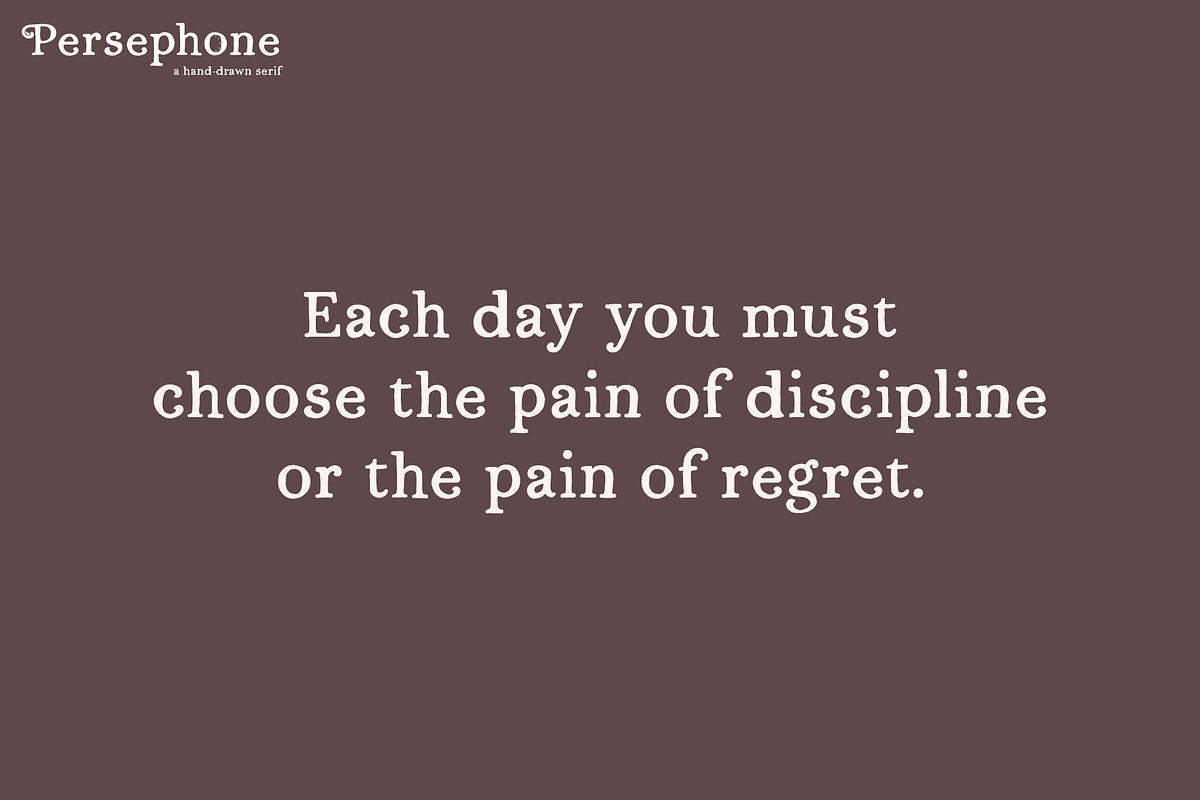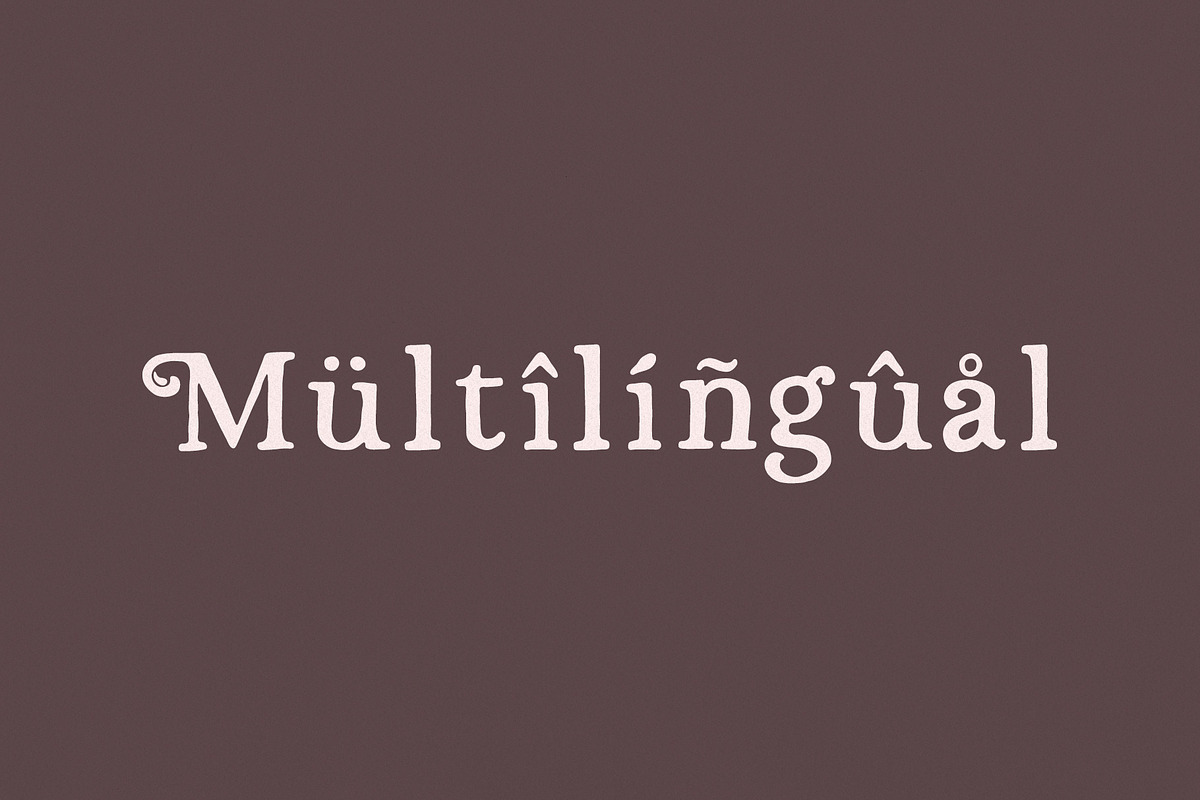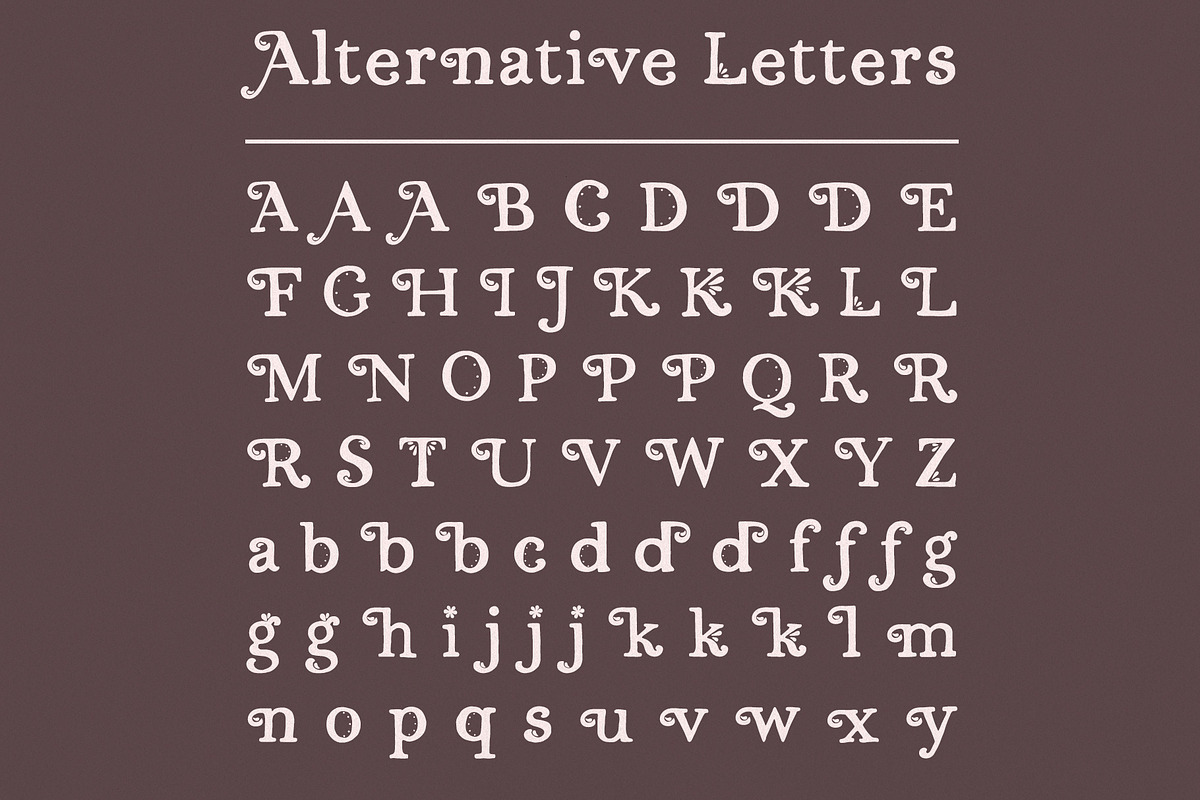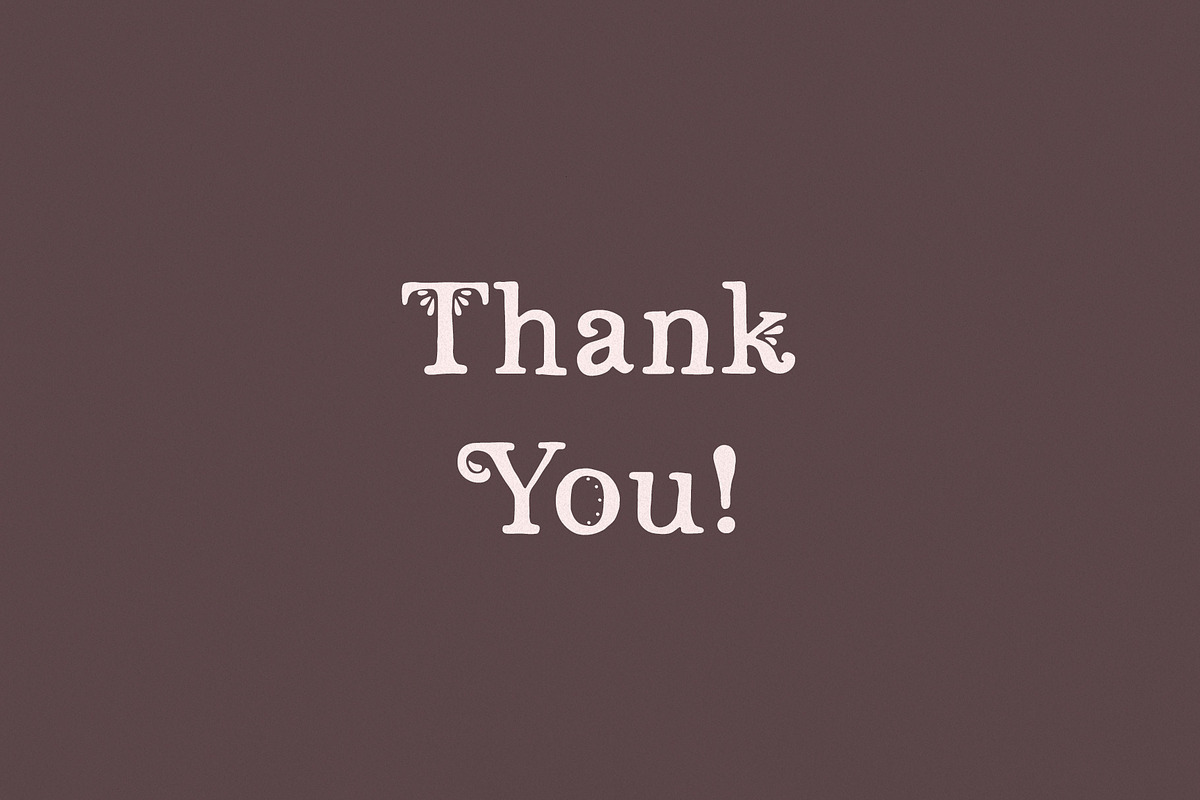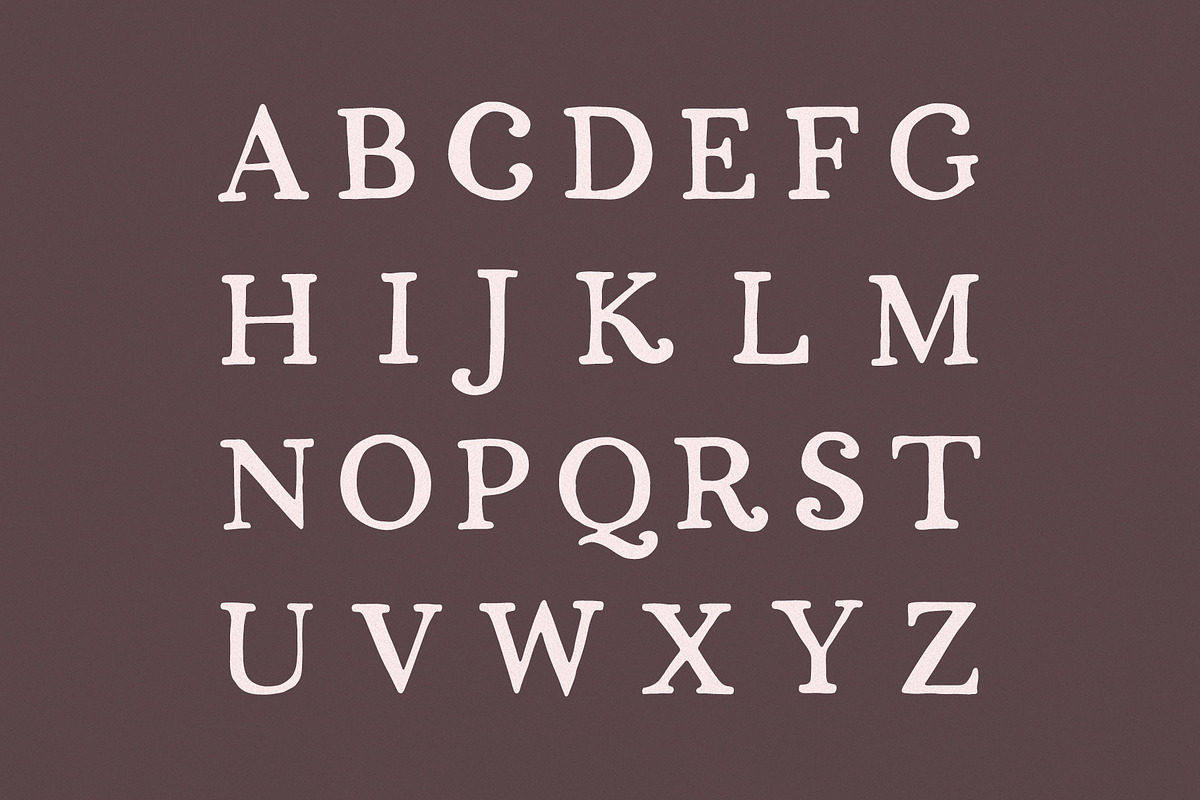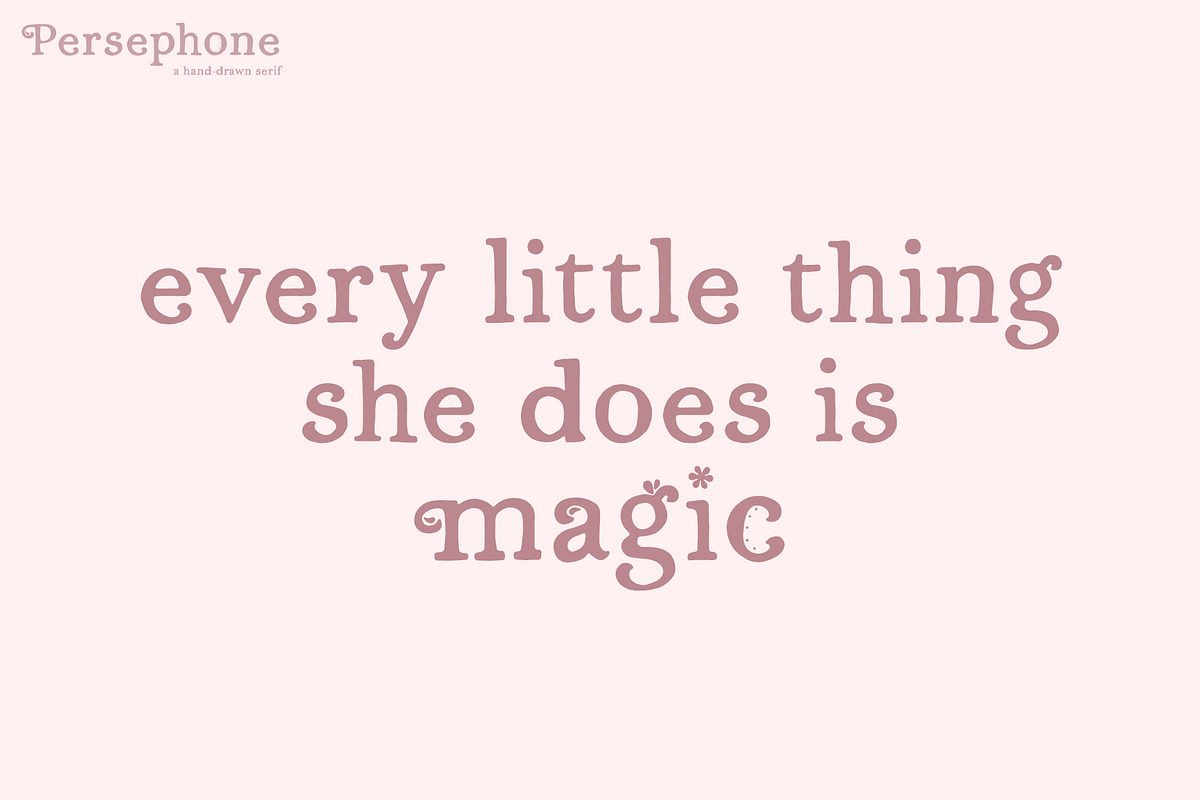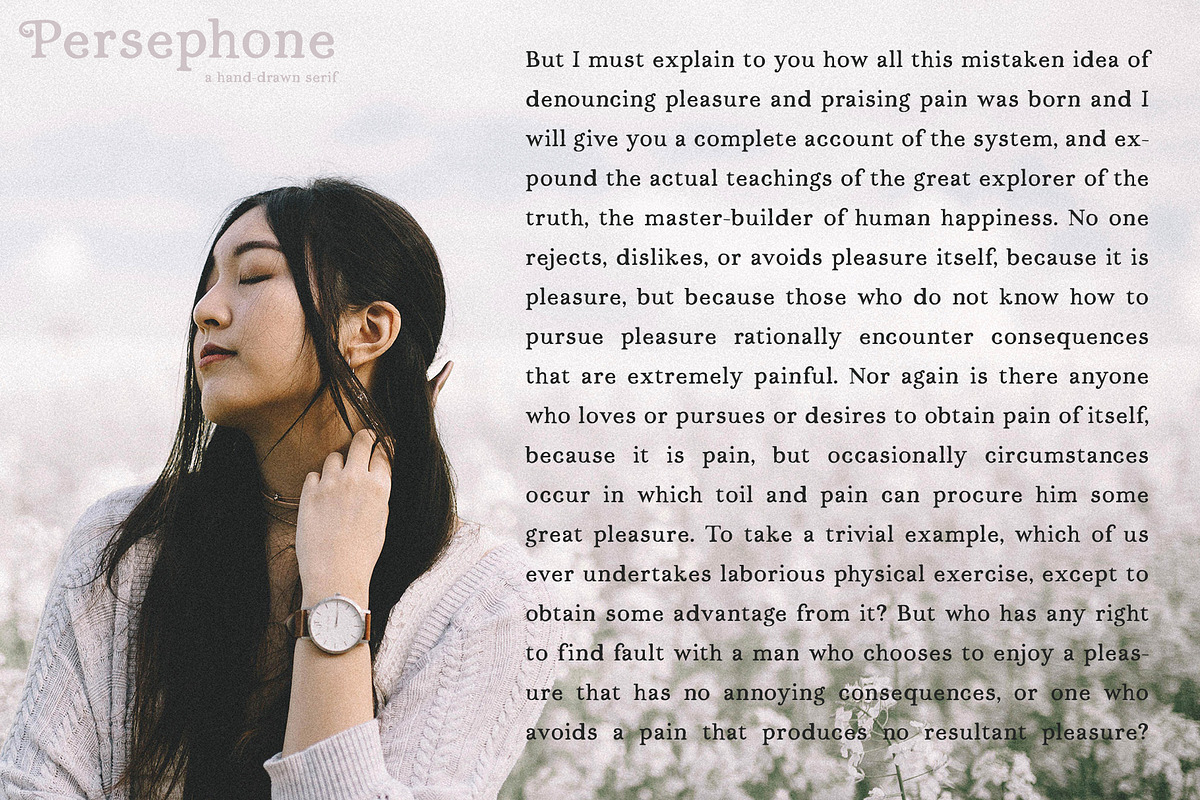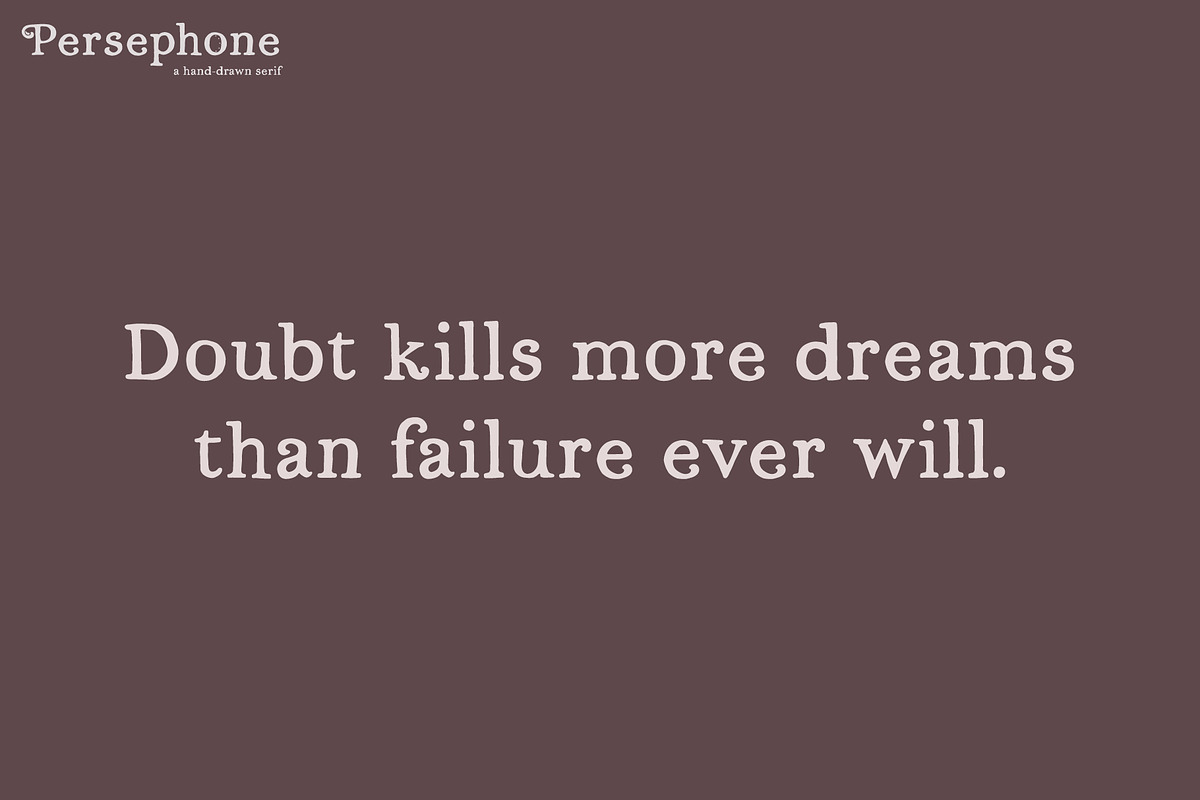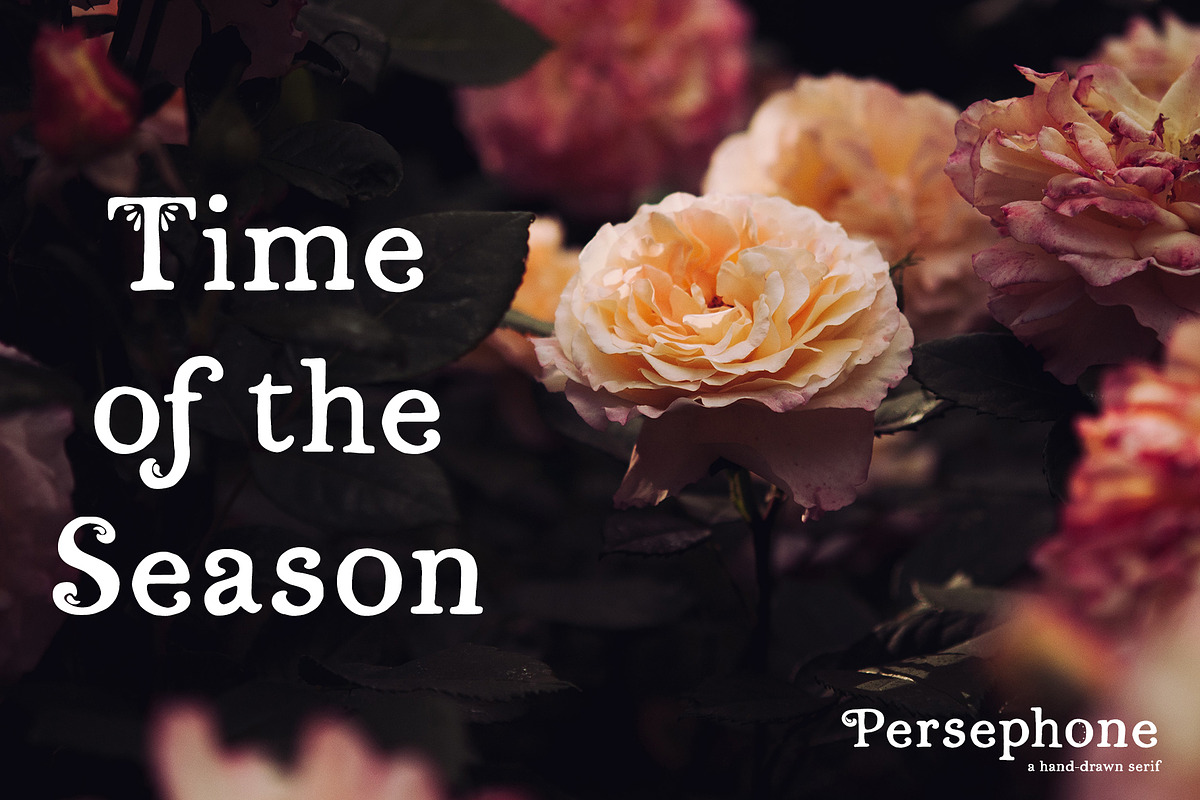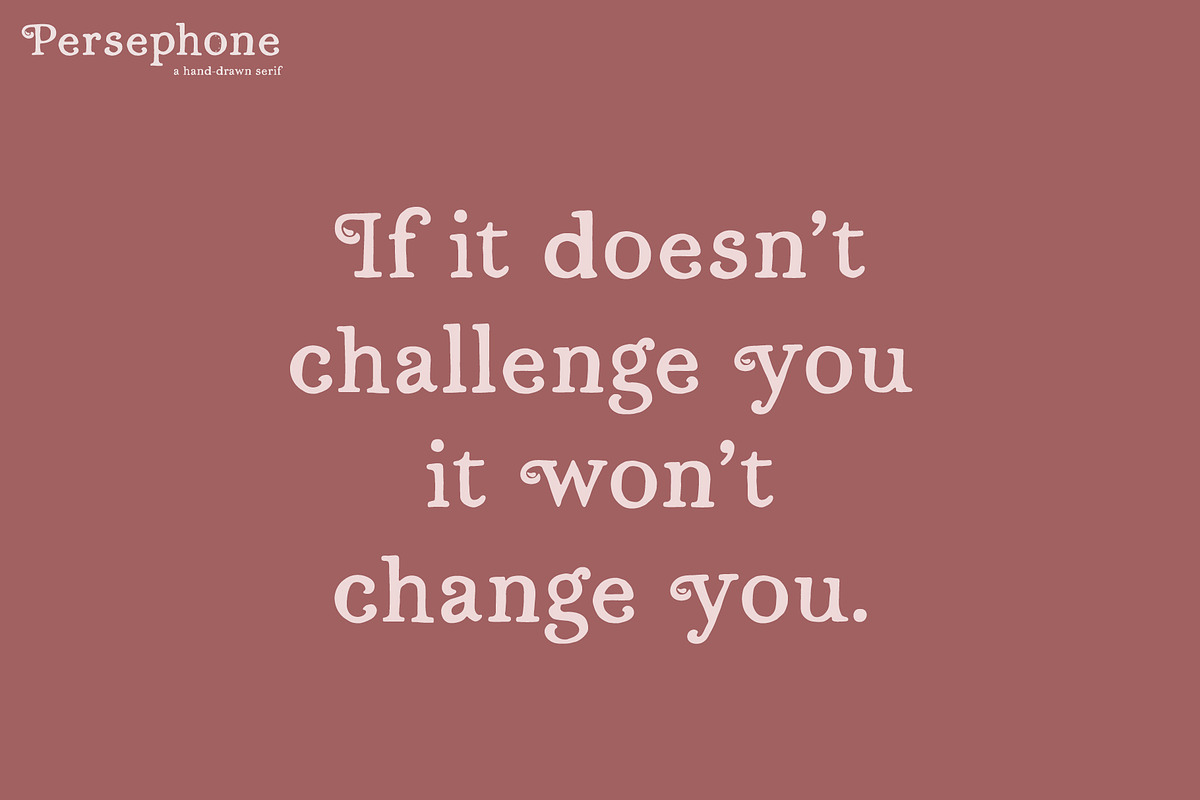
Persephone // A Hand-Drawn Serif
Persephone is a spring-inspired, imperfect, hand-drawn serif font.
This font is perfect for adding a handmade touch to your designs and can be used for a wide range of projects such as logo designs, branding, wedding invitations, social media posts, and so much more! Use the regular version for a stylish look or add in some of the alternative letters to give your design a little something extra! To access the alternative letters, use OpenType features to select the characters you're looking for.
- Upper and lowercase letters
- Accented characters for the international designer
- Several alternative letters